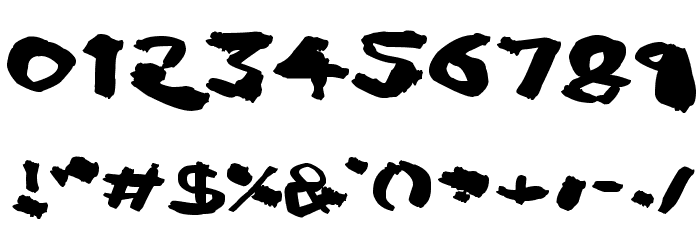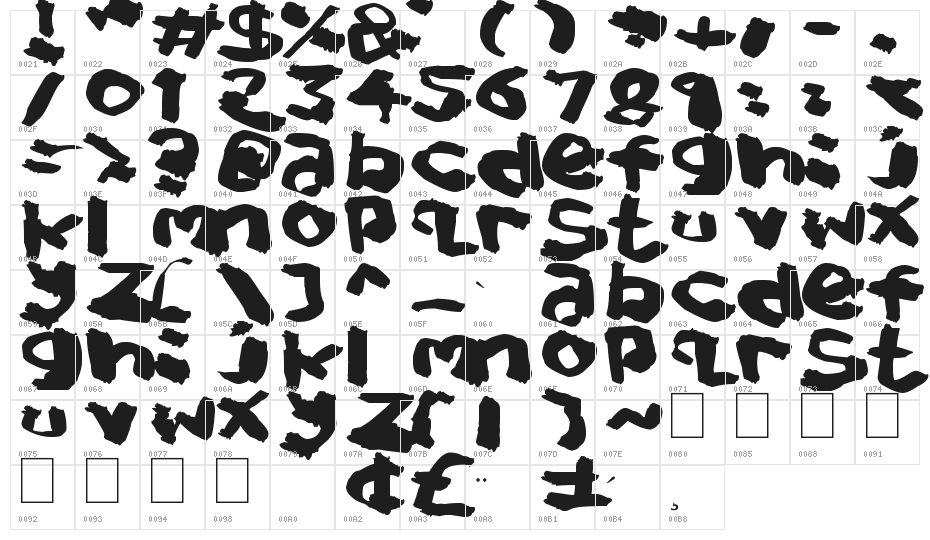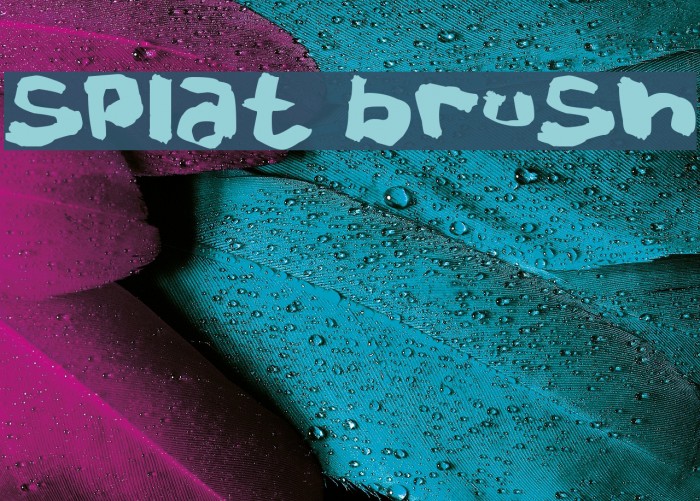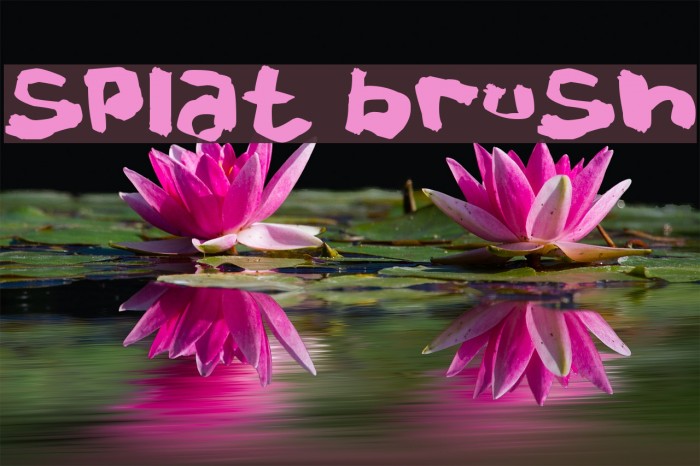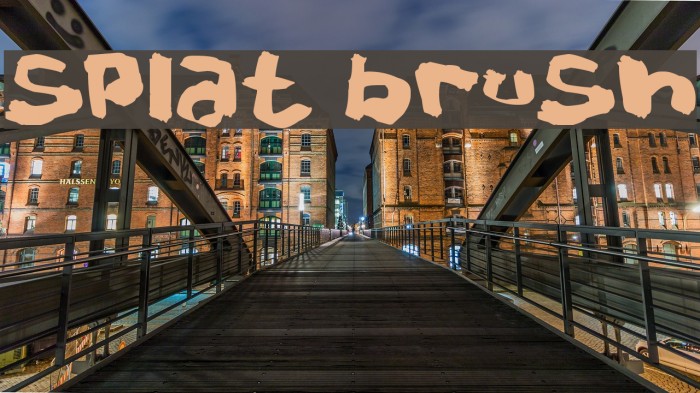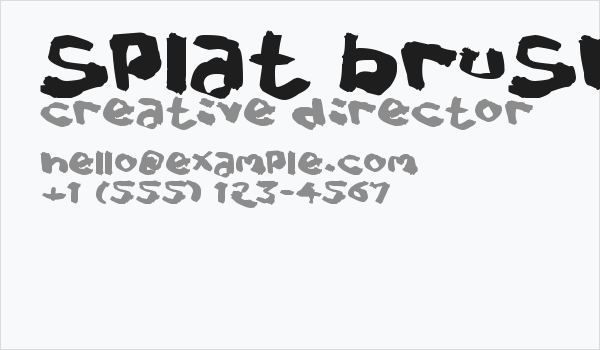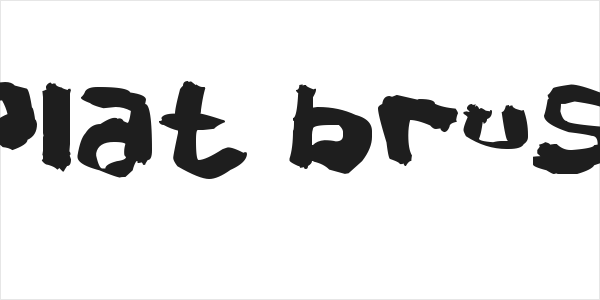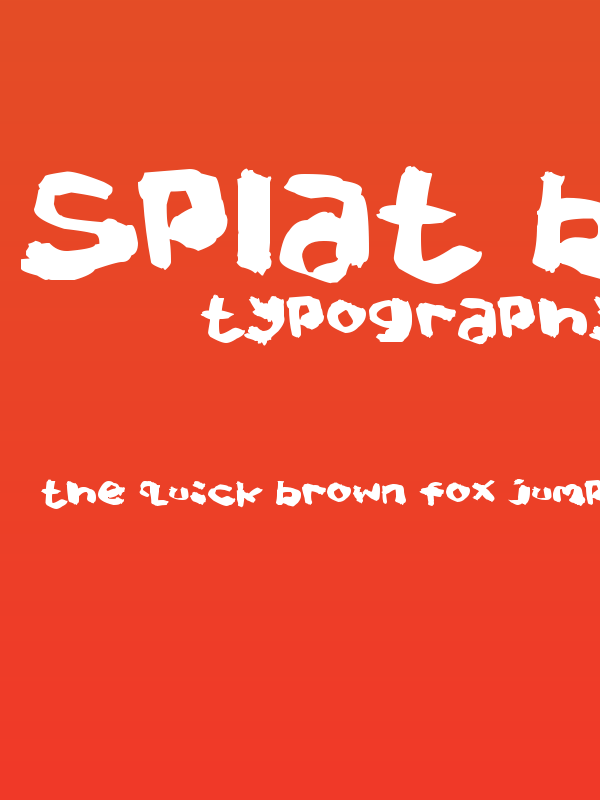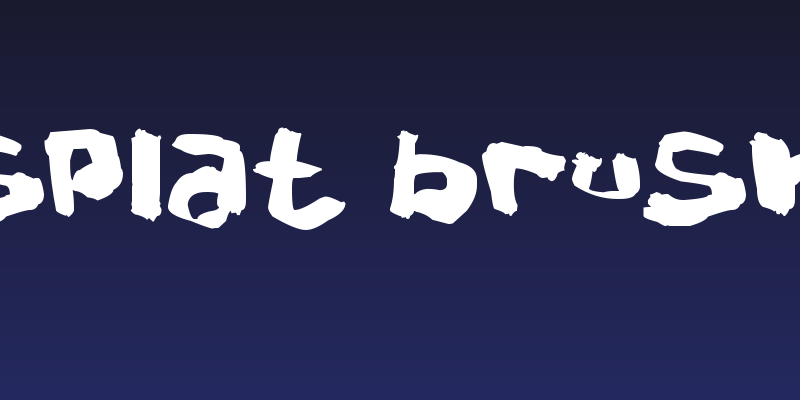
Splat Brush Font
Splat Brush Description
This font features a bold, expressive style reminiscent of brush strokes, giving it a dynamic and artistic appearance. The characters are irregular and organic, with a playful and spontaneous feel. Each letter appears as if it has been painted with a thick brush, resulting in a textured and uneven edge. The font maintains a consistent weight throughout, emphasizing its boldness and making it stand out. Its unique style captures attention and conveys a sense of creativity and energy, suitable for projects that require a distinctive and artistic touch.
| Overall Style | Artistic, Dynamic |
| Proposed Projects | Ideal for creative projects such as posters, album covers, artistic branding, and any design requiring a bold, expressive touch. |